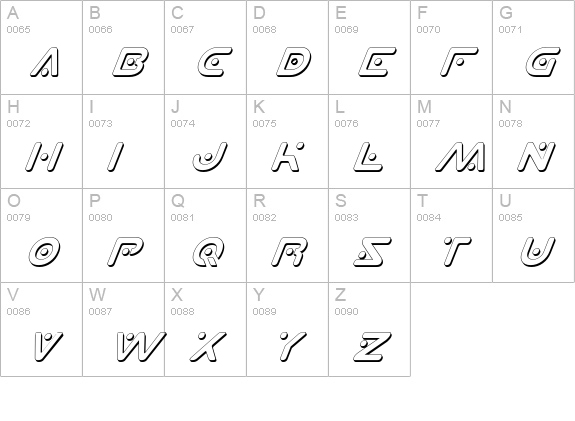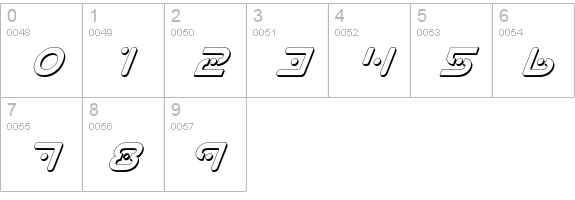
Planet X Shadow Italic is a distinctive, italic variant in the Planet typeface family \xE2\x80\x94 well suited to design and typography projects.
Introducing Planet X Shadow Italic, a captivating and contemporary font that effortlessly blends elegance with a touch of mystery. This font's unique and alluring design is perfect for adding a touch of sophistication to any project, whether it be a logo, a headline, or even a stylish invitation. Planet X Shadow Italic features beautifully curved and slanted letterforms, giving it a distinct and eye-catching appearance. Its elongated and shadowed strokes create a sense of depth and dimension, making each character stand out with an air of intrigue. This font's versatility is truly remarkable, as it effortlessly transitions from modern and edgy designs to more classical and refined aesthetics. Its dynamic nature allows it to adapt seamlessly to various design projects, ensuring that it remains a timeless choice for designers and creatives alike. One of the most remarkable aspects of Planet X Shadow Italic is that it is freely available to download at FontsMarket.com. This means that you can effortlessly enhance your creative endeavors without any financial constraints. Whether you are a professional designer or a passionate hobbyist, the accessibility of this font ensures that you can bring your visions to life with ease. So, why wait? Embrace the captivating allure of Planet X Shadow Italic and let your creativity soar. Download this font today from FontsMarket.com and explore the endless possibilities it offers for your design projects. Elevate your work with this stunning and freely accessible font, and watch as your designs shine with a touch of elegance and intrigue.